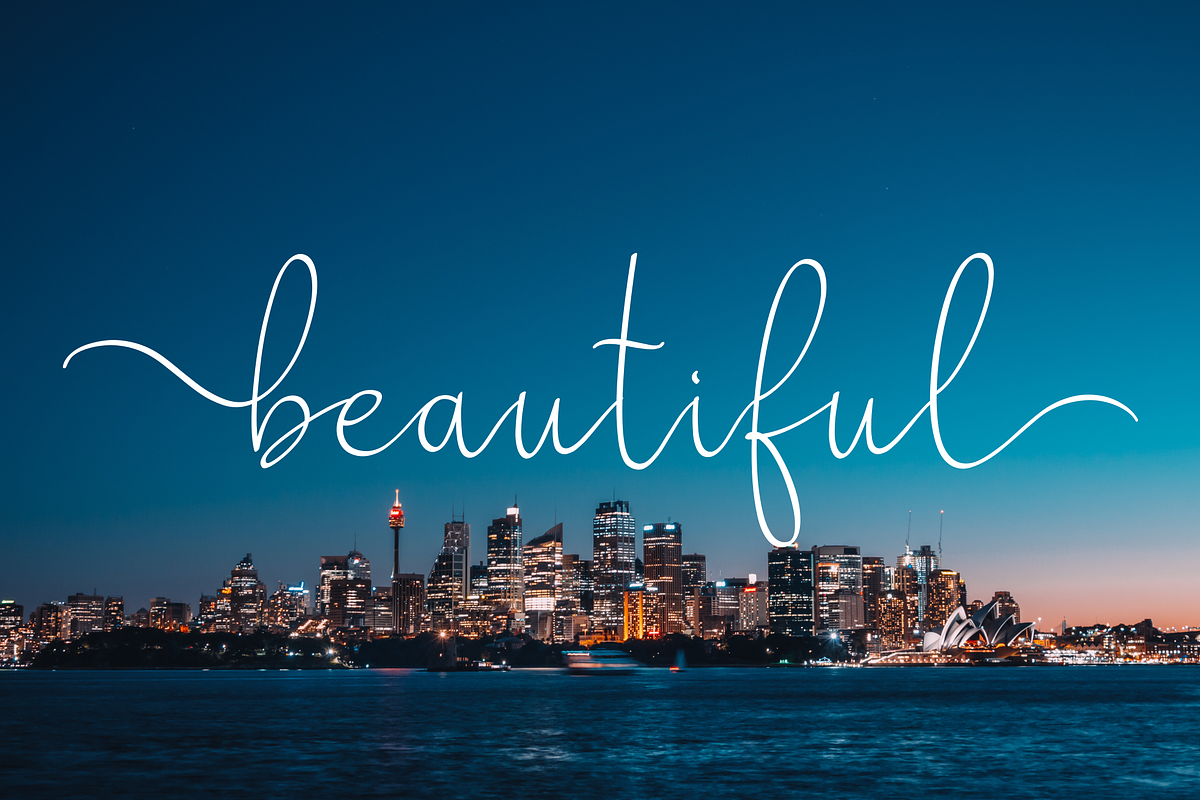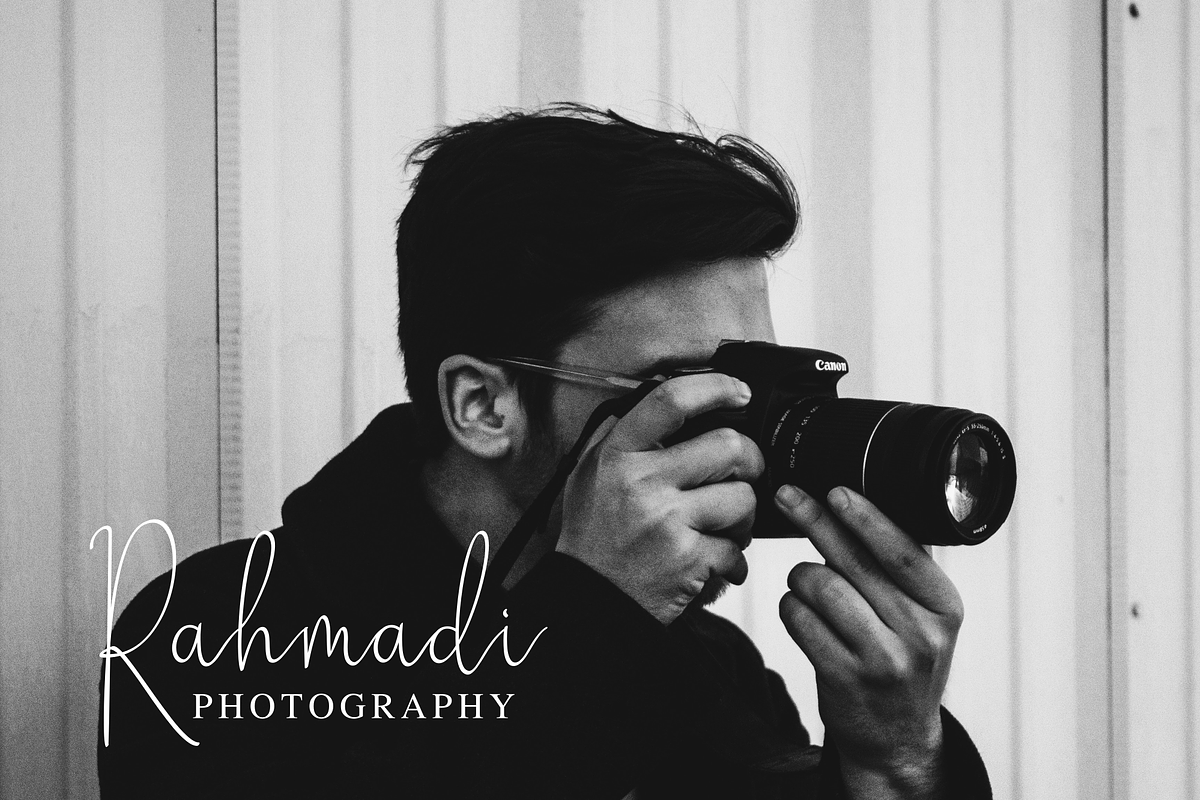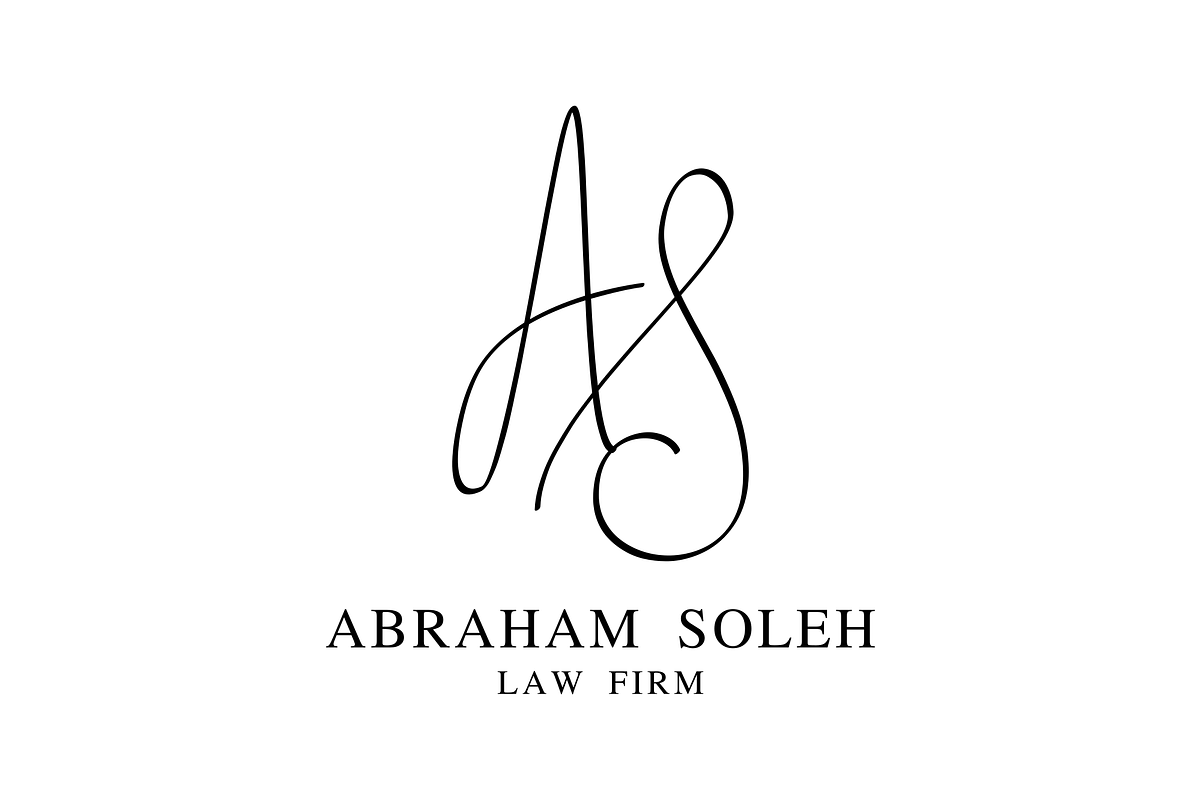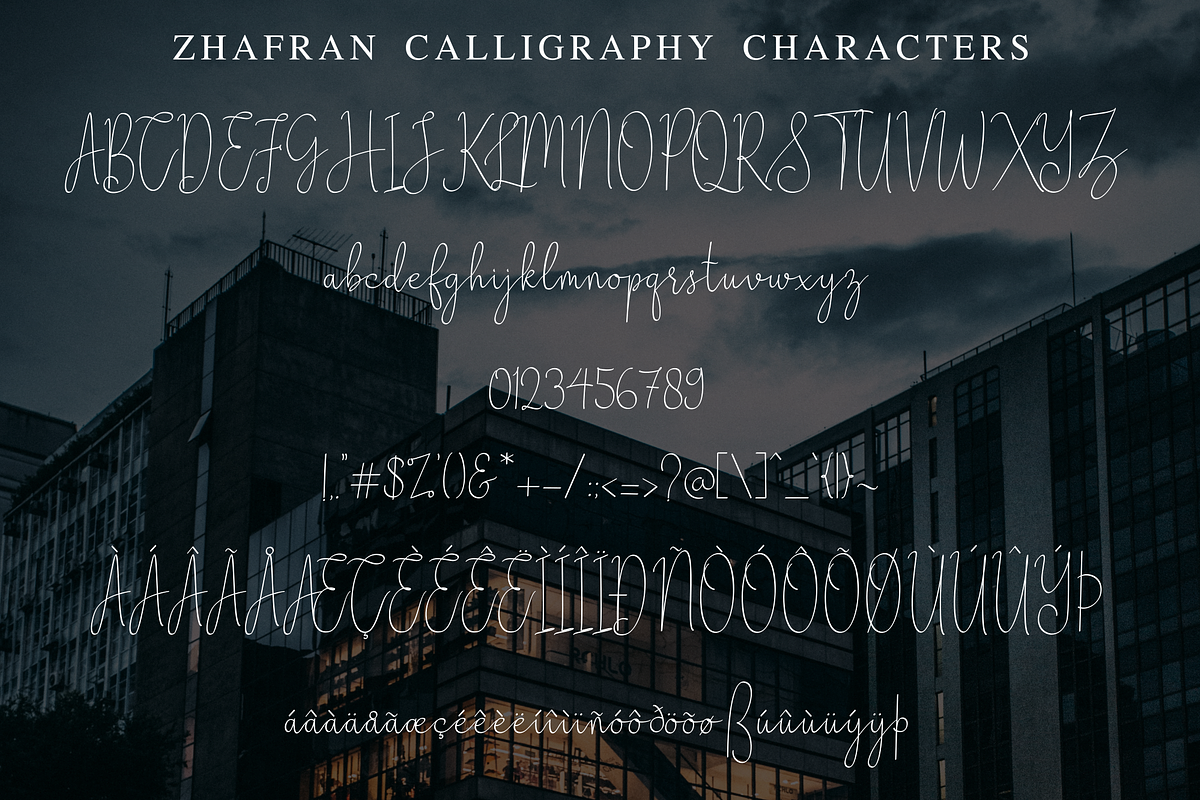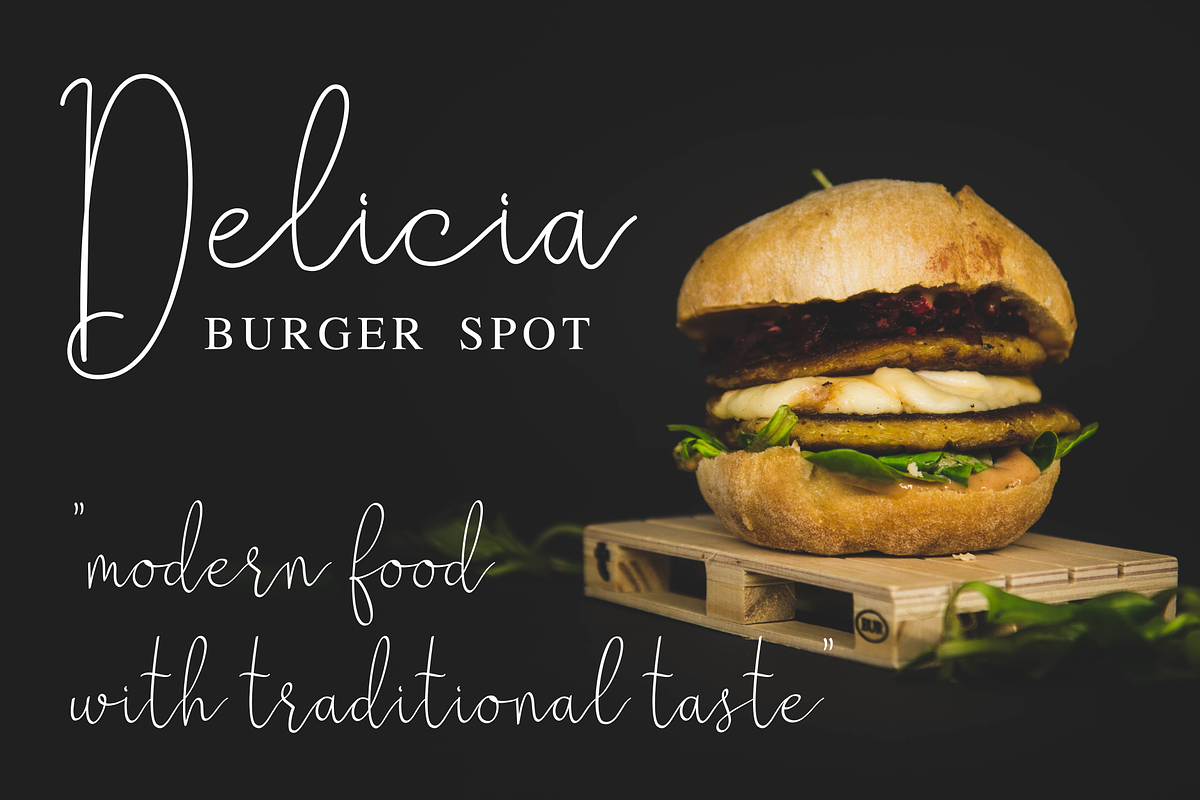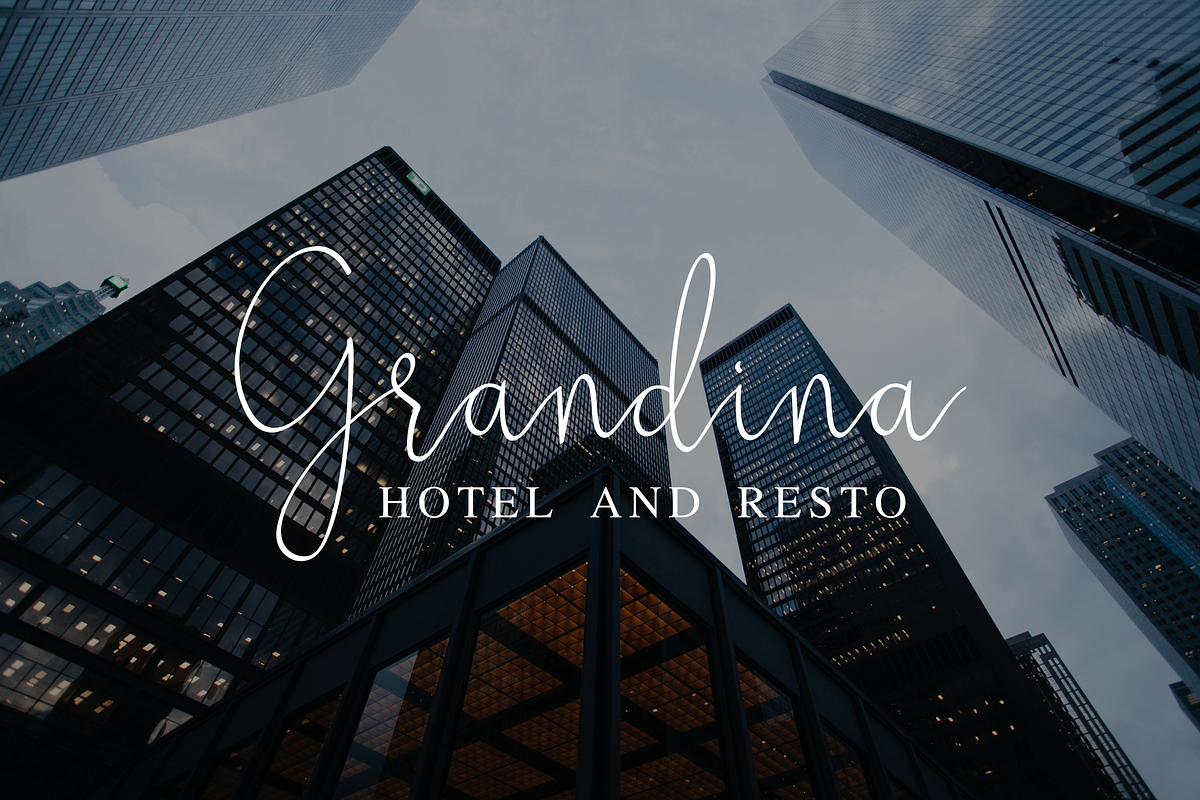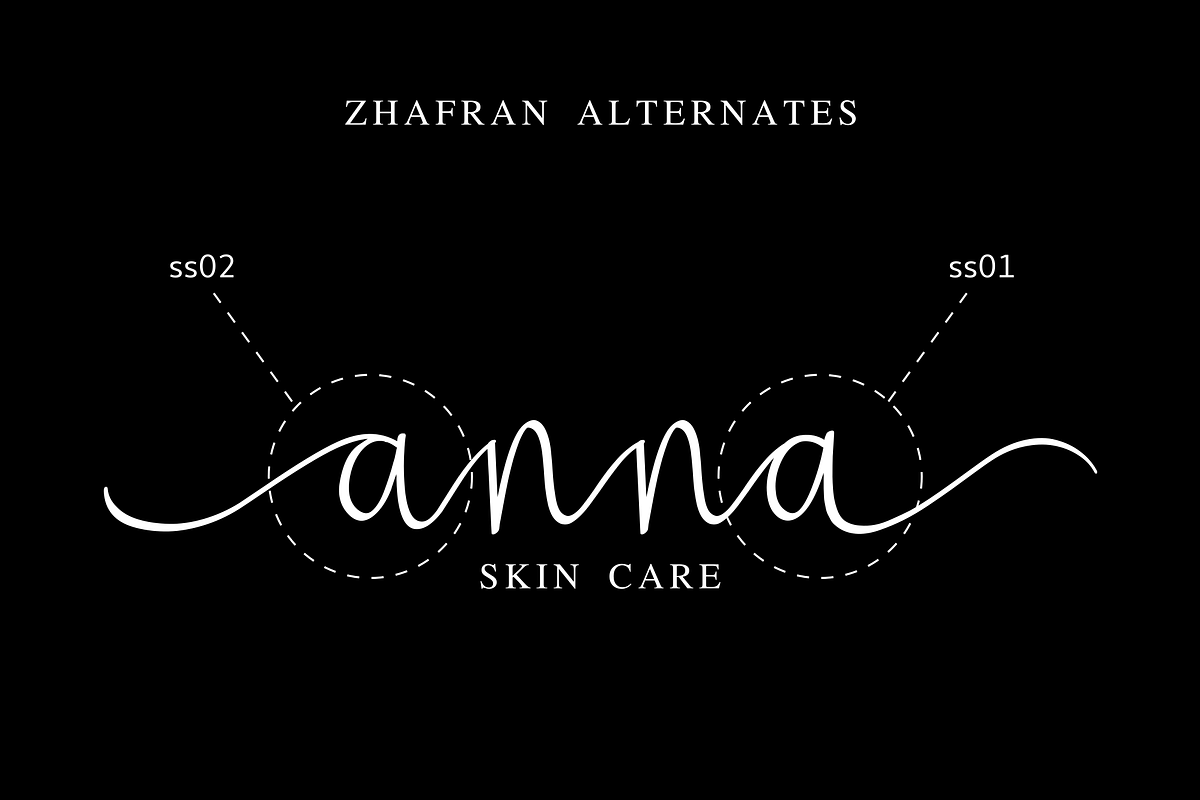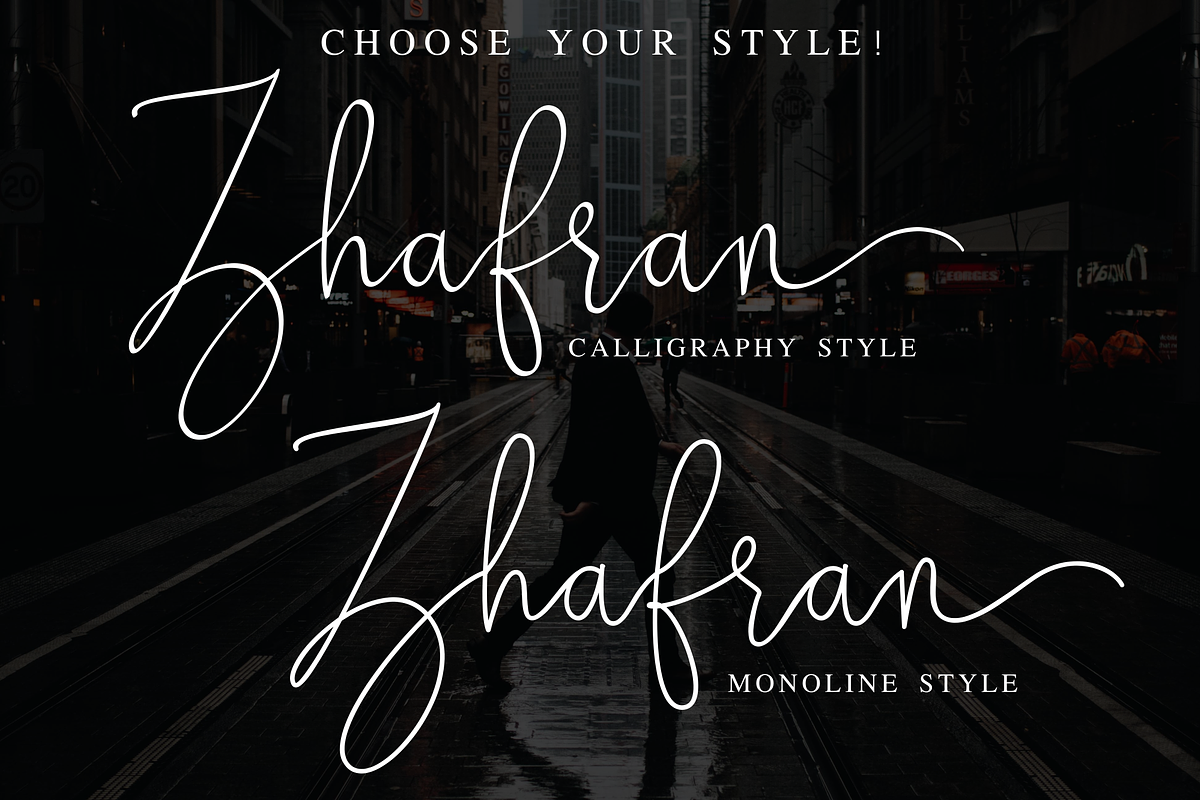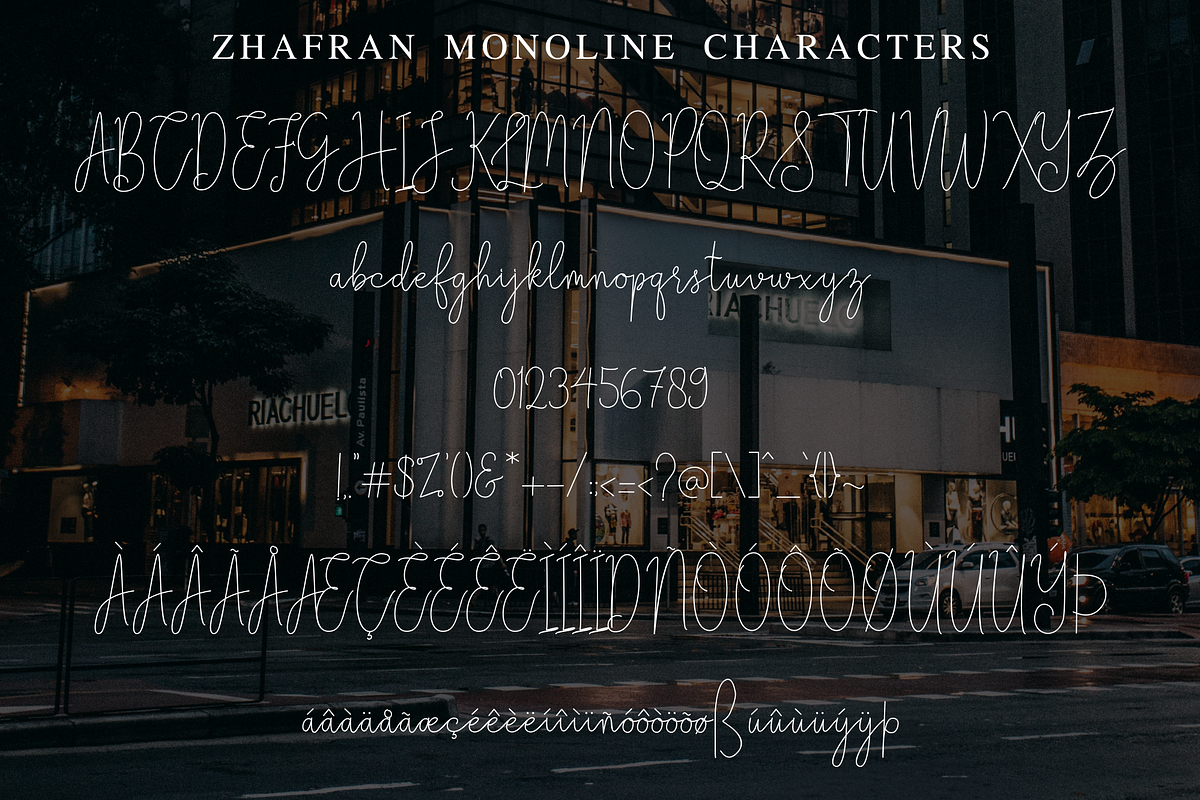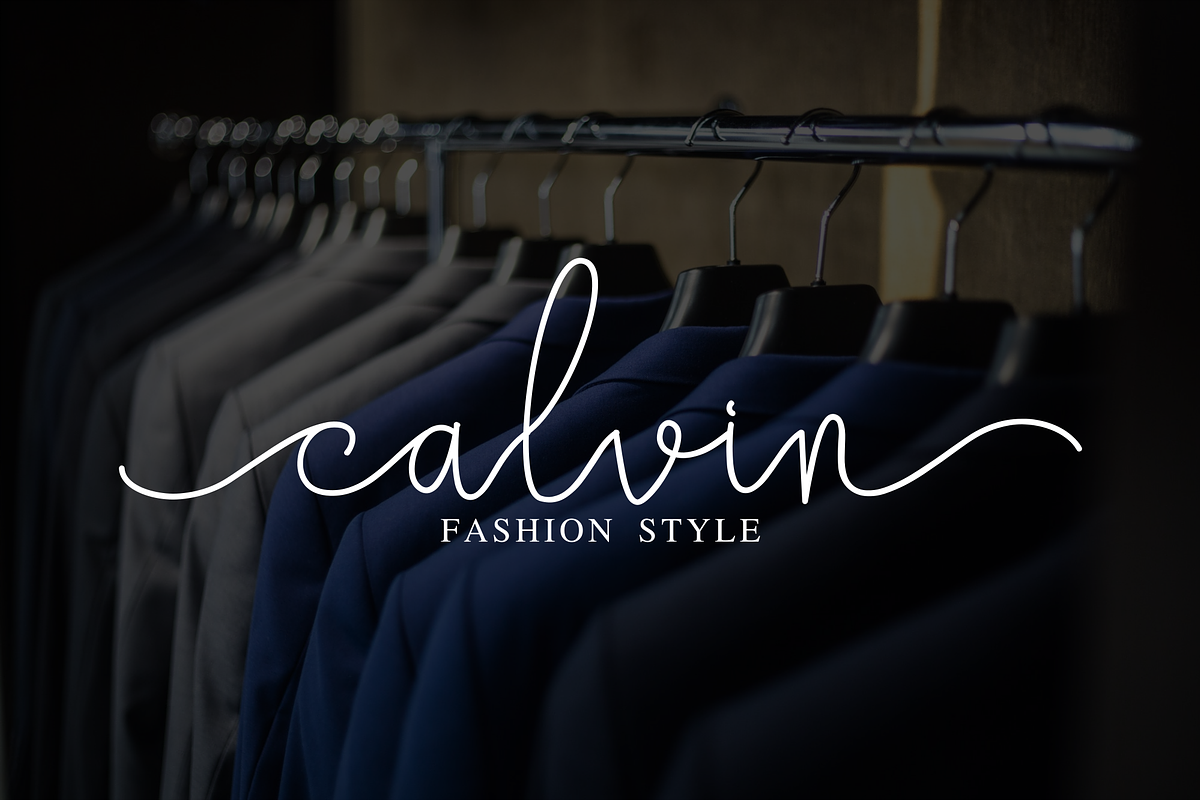
Zhafran
Let me introduce our new product, Zhafran.
Zhafran is an elegant signature font with two styles, calligraphy and monoline. It’s perfect for logos, unique branding, photo overlays, signatures, and much more.